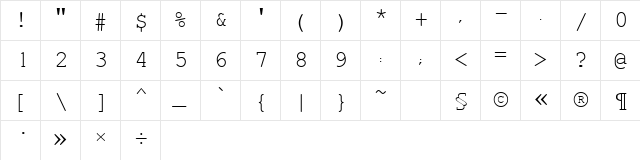
Estrangelo Edessa Regular
| Designer | Paul Nelson and George Kiraz |
Design Context for Estrangelo Edessa Typeface
Estrangelo Edessa is a composed and adaptable typeface that performs quietly and consistently across a wide range of design contexts.